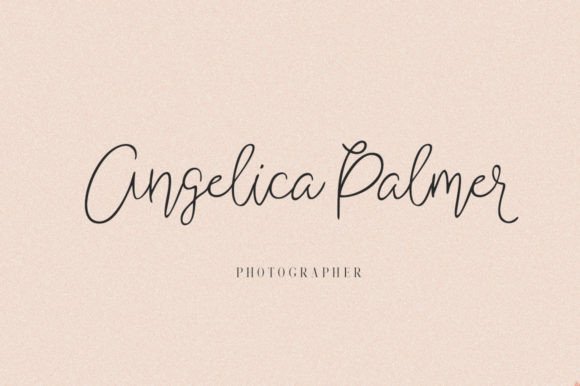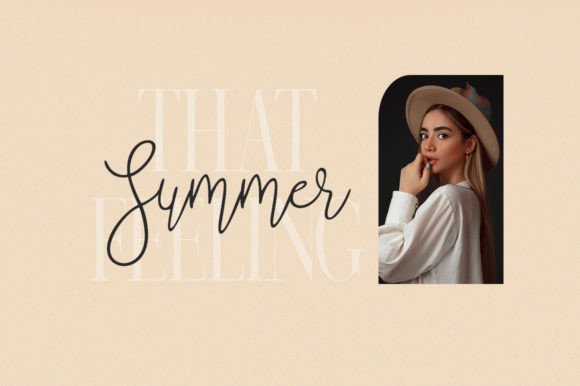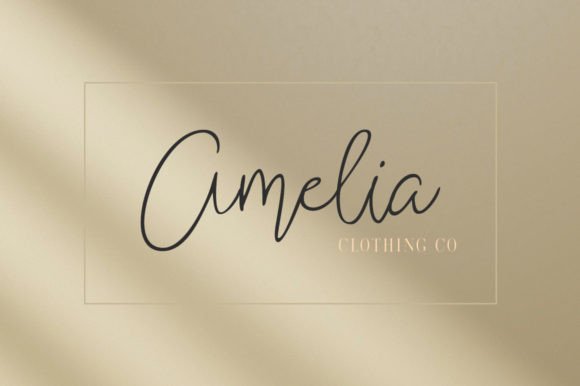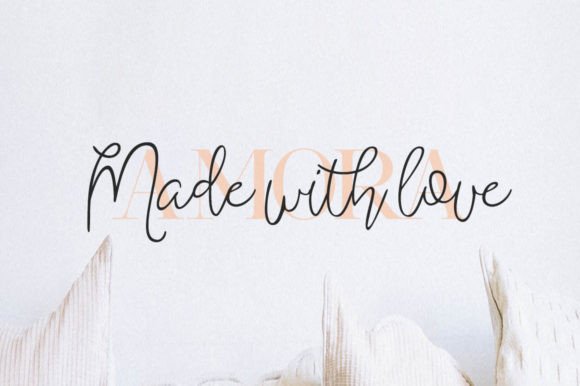
Introduction to Shartica Font
Have you ever stumbled upon a font that perfectly captures the essence of your creative project? For designers, finding the right font can be a game-changer. It’s the difference between a design that looks good and one that truly shines. I still remember the moment I discovered the Shartica Font – a modern calligraphic script font that stole my heart with its dynamic and pretty swashes.
What sets Shartica Font apart is its versatility and high quality design. Whether you’re working on a wedding invitation, a logo, or a signage project, this font is sure to elevate your design to the next level. With its transparent background and beautiful swashes, it’s a valuable resource for designers who want to add a touch of elegance and sophistication to their work.
Key Features of Shartica Font
- High-quality design: The Shartica Font is a premium design resource ideal for creative projects that require a sophisticated and elegant look.
- Unique characteristics: The font’s unique blend of modern and classic elements makes it an excellent choice for designers looking to add a touch of sophistication to their creative projects.
Honest Review: Shartica Font
As a designer, I’m always on the lookout for unique and high-quality design resources to elevate my creative projects. The Shartica Font caught my attention with its quirky and modern aesthetic.
The Shartica Font boasts a clean and transparent background, allowing for smooth layering and composition in design projects. Its versatility and high quality make it an excellent design resource for any creative project.
- ⚠️ Some users may find the font’s quirky style too unconventional for certain design projects
Overall, I’m impressed with the Shartica Font’s unique character and high-quality design. While it may have some limitations, it’s an excellent addition to any designer’s toolkit, especially for those seeking a modern and creative twist in their work.
The Shartica Font is a high-quality, free design resource ideal for creative projects. This versatile font features a transparent background, making it perfect for overlaying on images or using as a standalone text element.
Common Use Cases for Shartica Font
The Shartica Font is ideal for:
1. Social media graphics
2. Blog post headers
3. Infographic titles
4. Brand logos